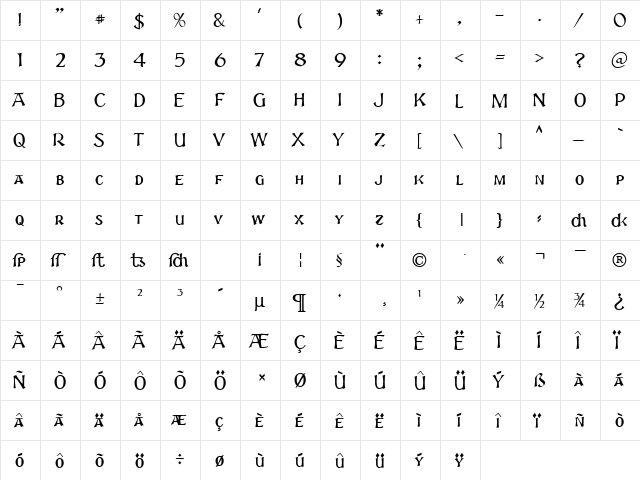
Serifico 12 DB Normal
Design Context for Serifico 12 DB Typeface
Serifico 12 DB carries the refined structure of traditional serif typography, with bracketed terminals and considered proportions that communicate credibility and craft.
Pro Tip: Use Serifico 12 DB for editorial body copy and considered headline work. Pair with a neutral sans for UI elements or captions to create a classic hierarchy.